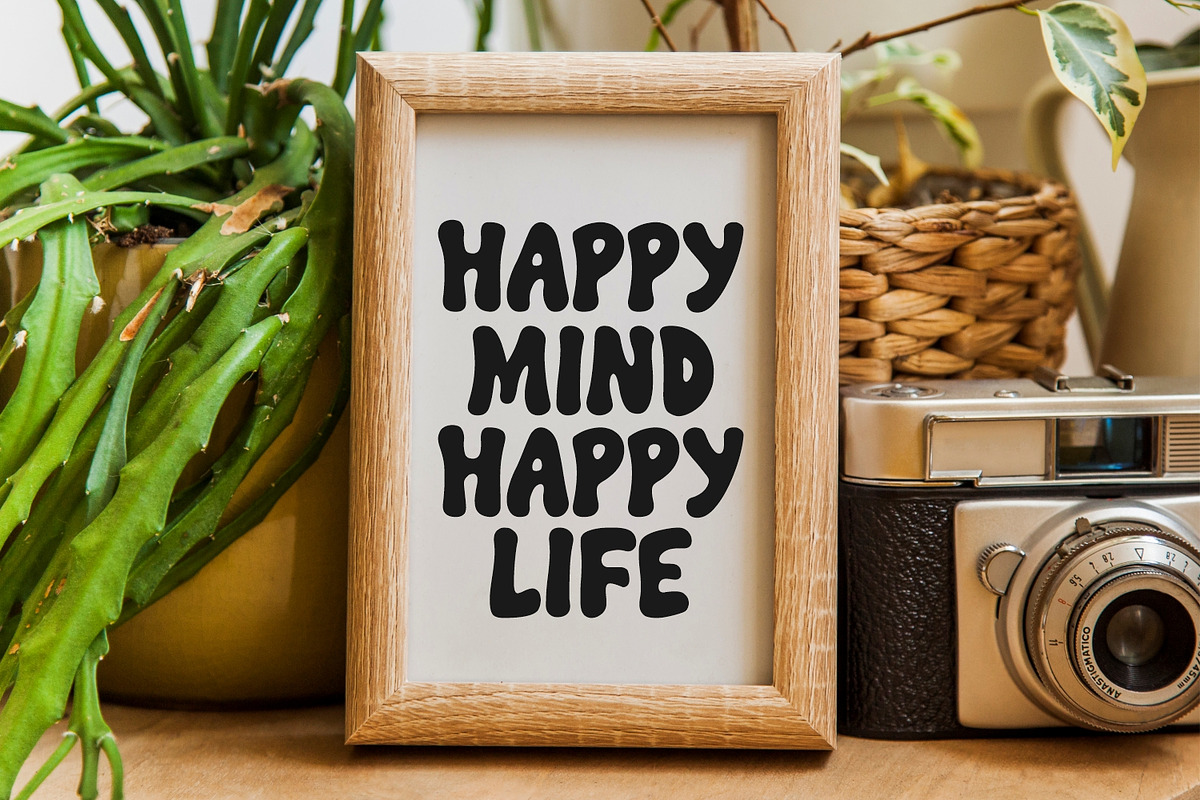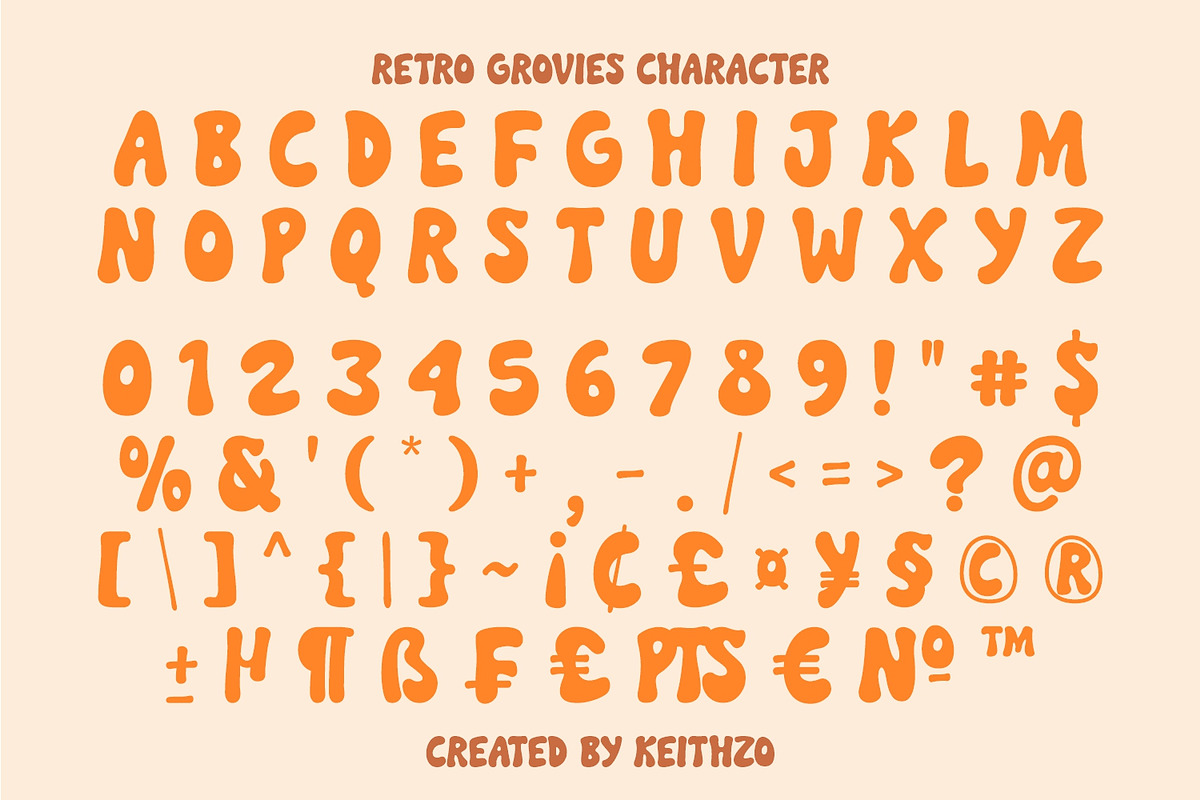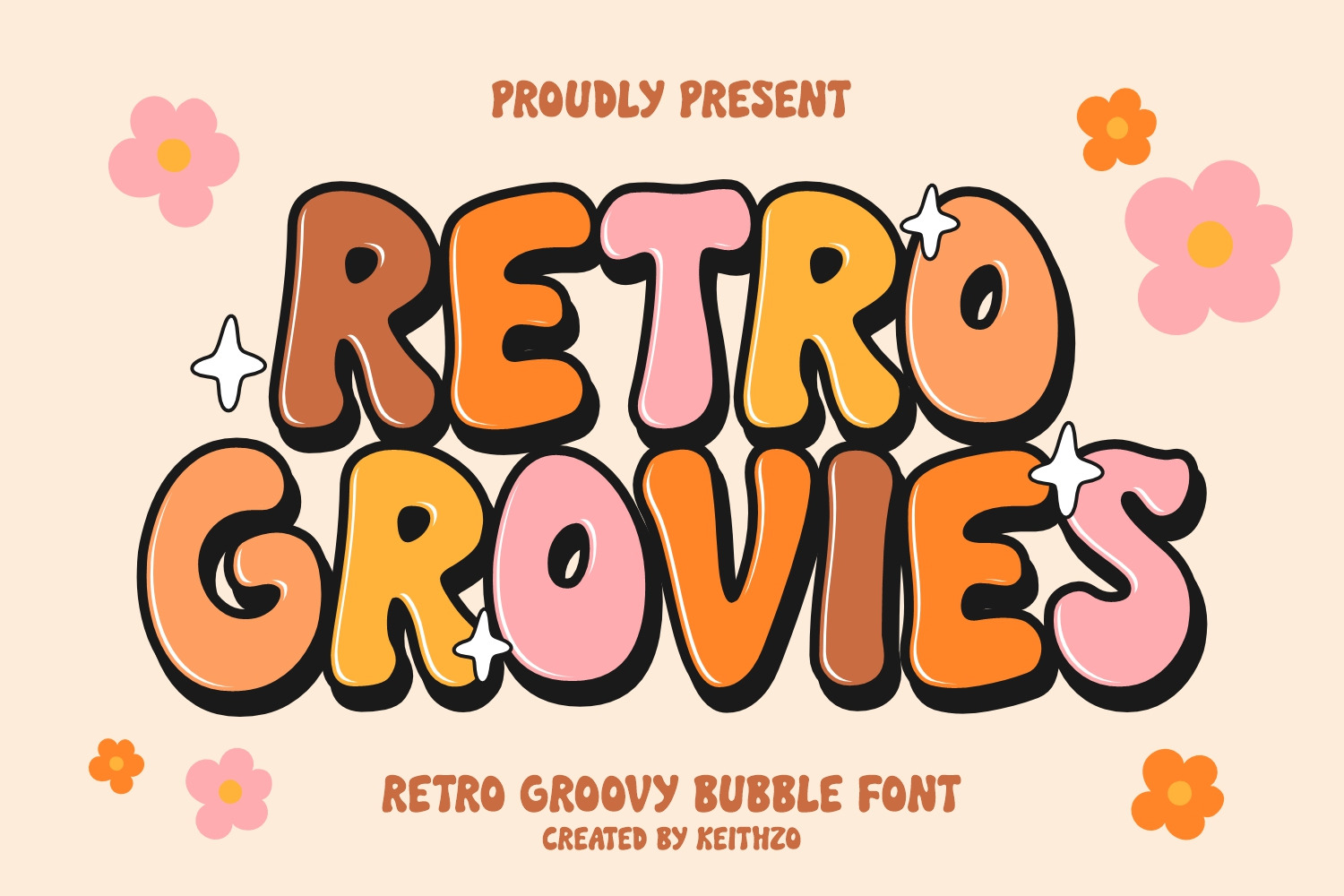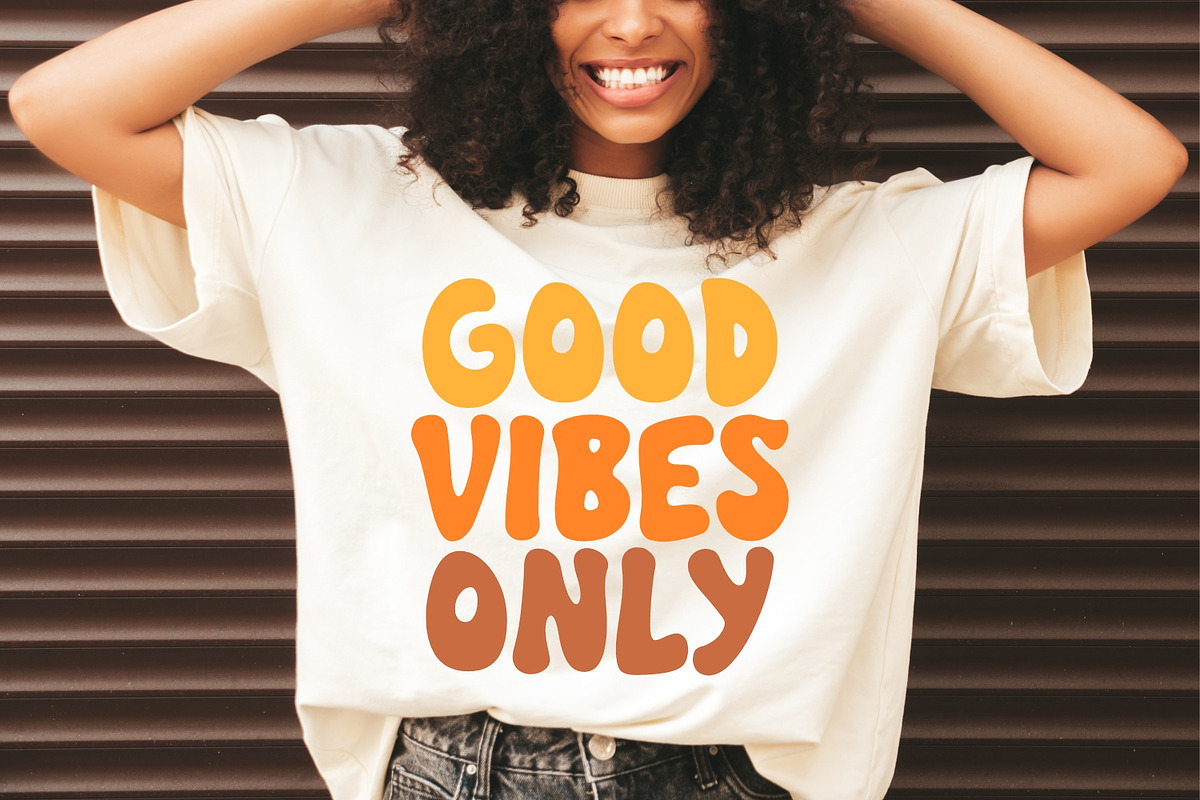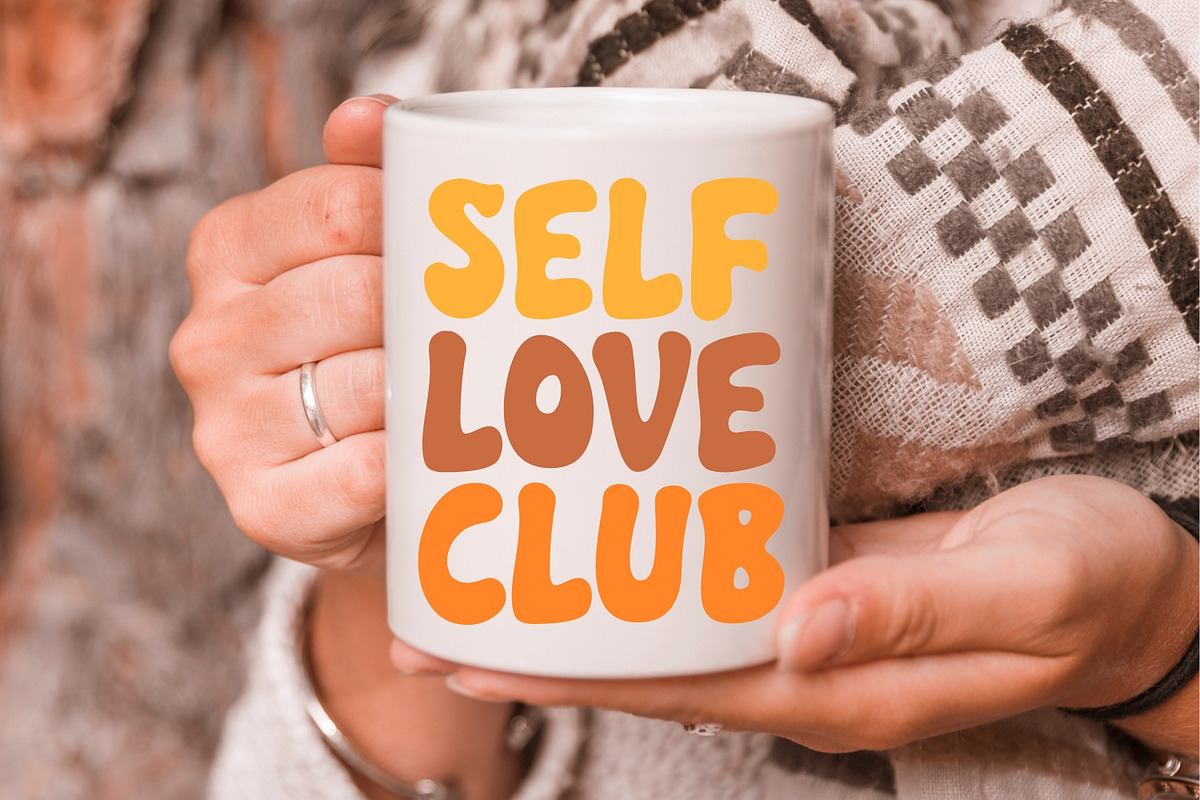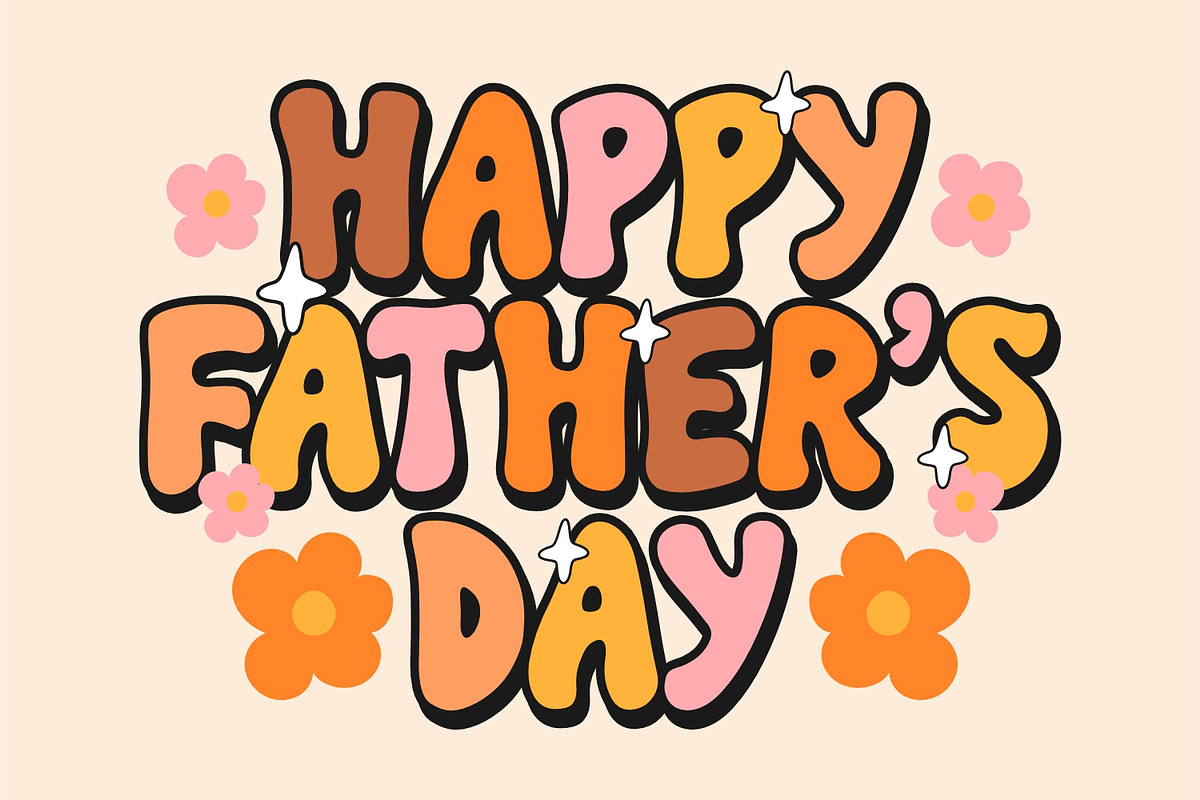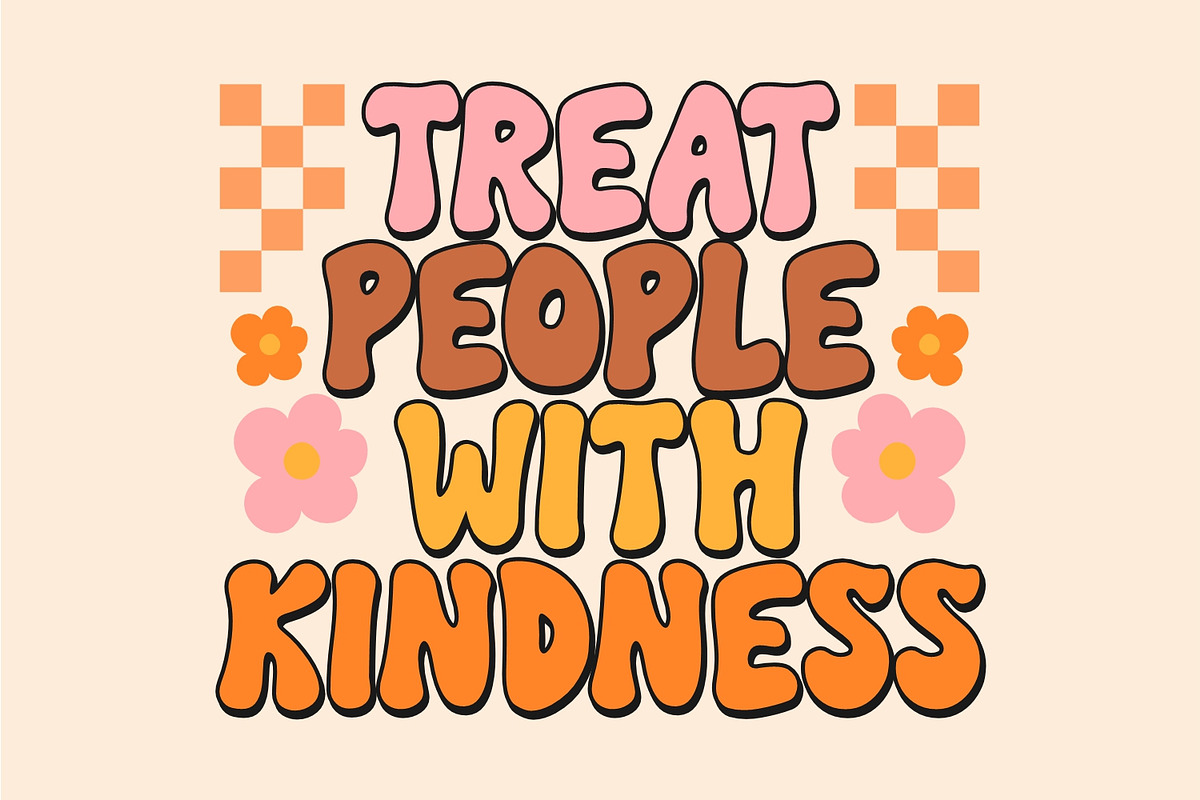
Retro groovies - Retro Font
Retro Grovies is playfully nostalgic and delivers an incredible display font. Use this display font to add that special retro touch to any design idea you can think of! Masterfully designed to become a true favorite, this font has the potential to bring each of your creative ideas to the highest level! This font is PUA encoded which means you can access all of the amazing glyphs and ligatures with ease!
All Caps Character
Stylistic and Ligatures
Accented characters
Multiple Languages Supported